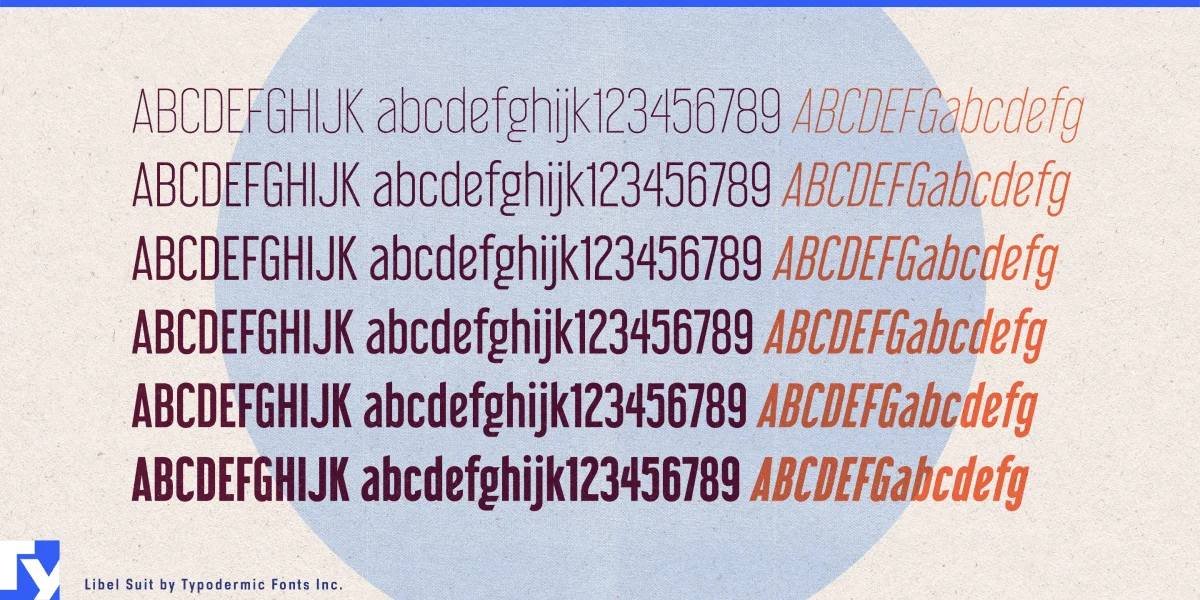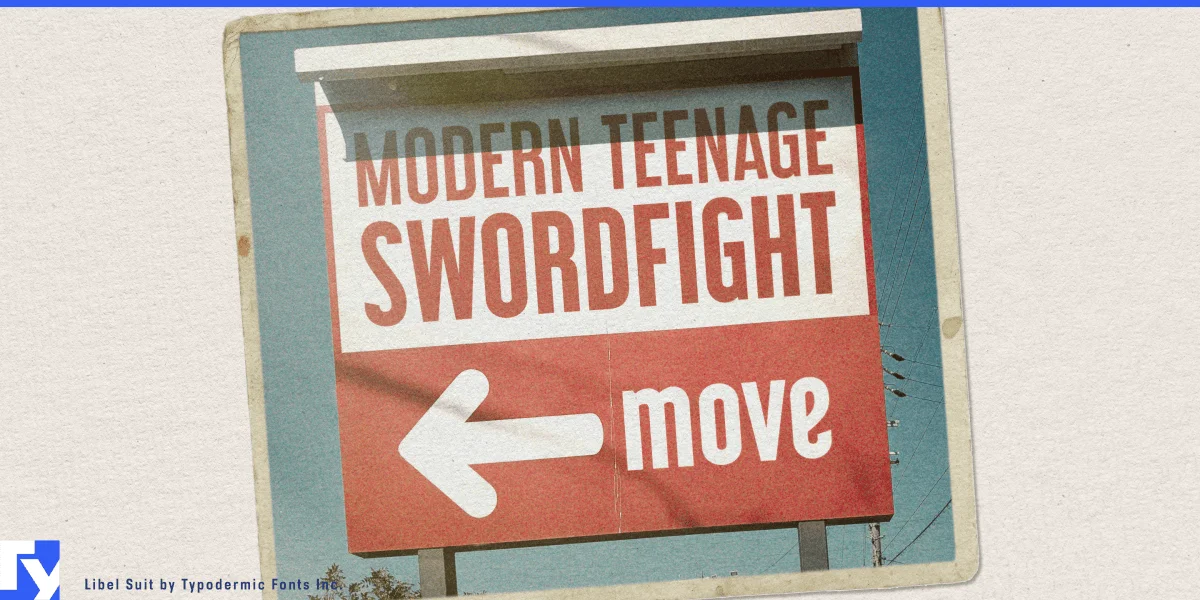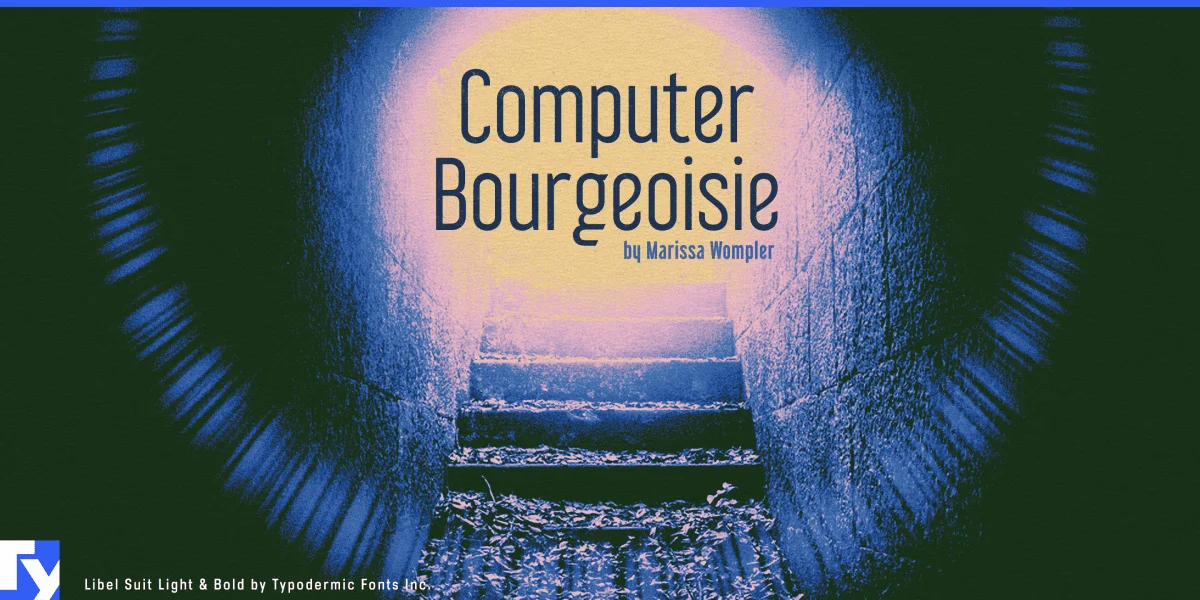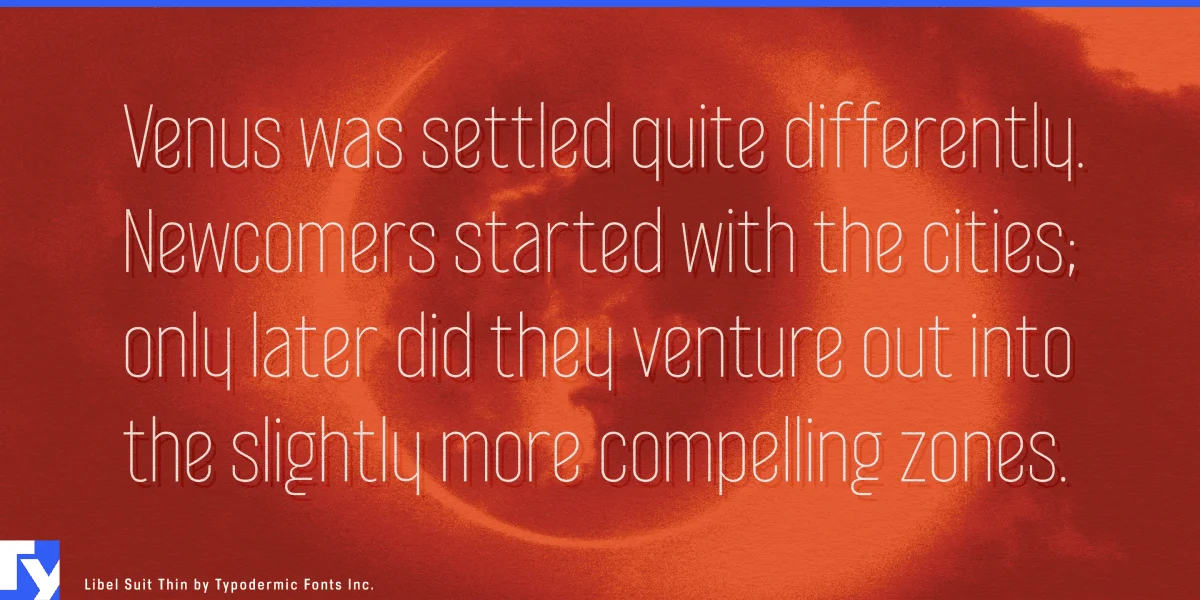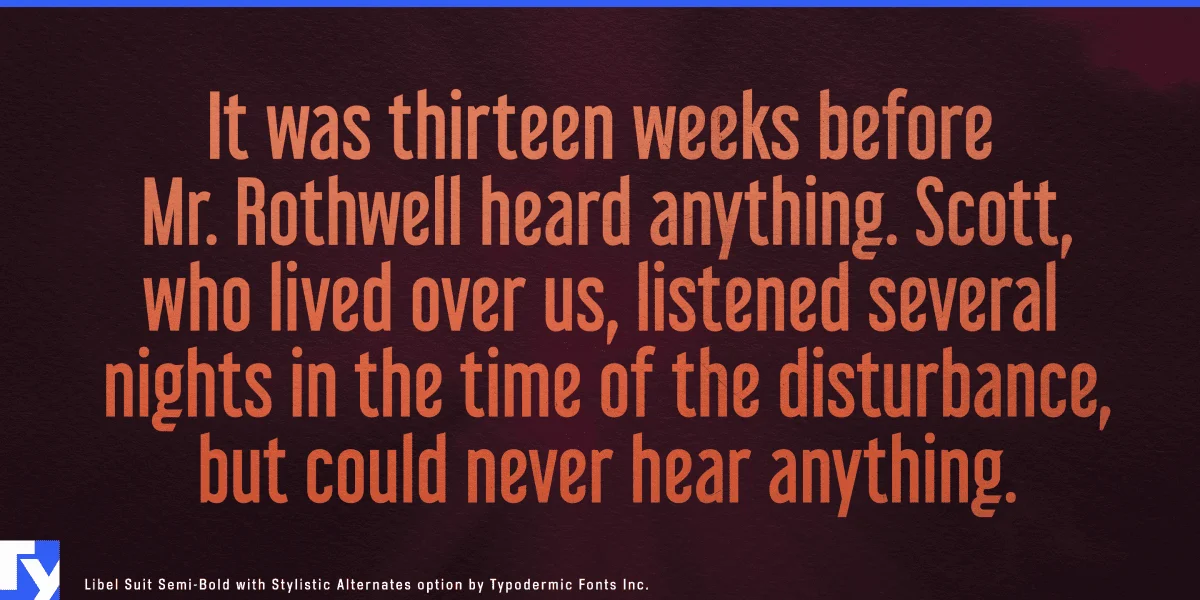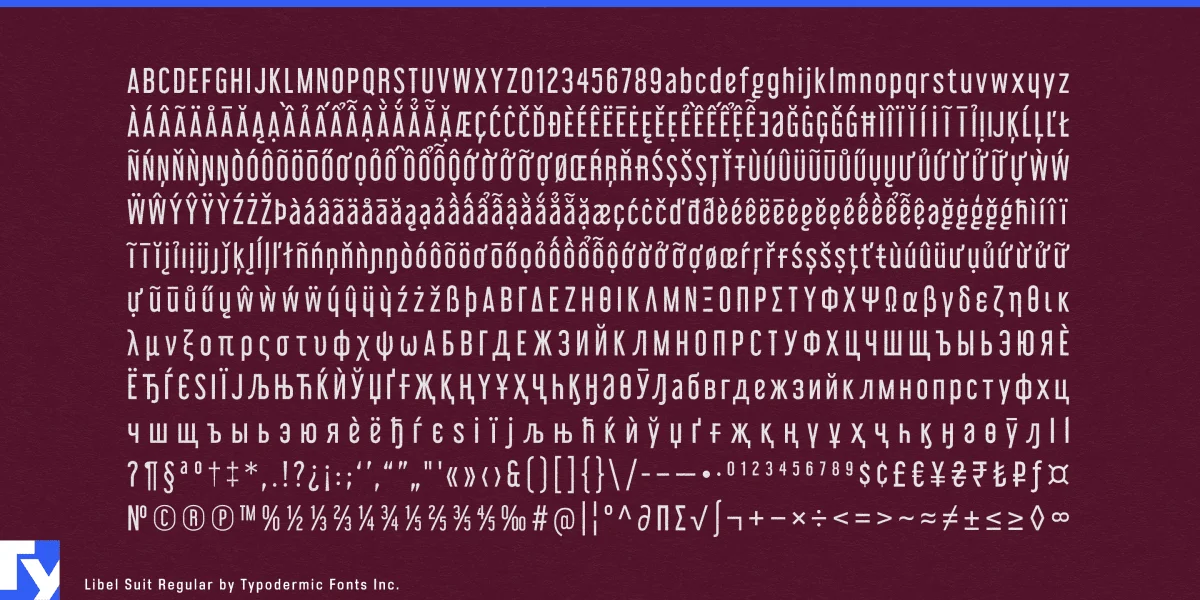
Meet Libel Suit—the sans-serif that’s more cutting-edge than a lawyer’s briefcase. This isn’t just a typeface; it’s a postmodern rebellion squeezed into sleek, efficient letterforms.
Picture a font that’s been through a high-tech tailor, emerging slim, trim, and ready to testify in the court of design. Libel Suit’s unique industrial vibe doesn’t just nod to efficiency—it redefines it. With six weights and matching italics, it’s like having a typographic Swiss Army knife at your disposal. But Libel Suit isn’t content with mere style. It’s armed with OpenType numerical ordinals and fractions, ready to crunch numbers with the precision of a forensic accountant. And for those who like to play by their own rules, the “stylistic alternates” feature lets you swap in a more conventional “g” and “y”—because sometimes even rebels need a disguise. Linguistically, Libel Suit is a polyglot’s dream. It speaks fluent Latin, Cyrillic, Greek, and even Vietnamese, making it ready to take your message global faster than you can say “international incident.”
Ready to inject your designs with a dose of postmodern panache? Let Libel Suit be your typographic advocate. In the cutthroat world of design, Libel Suit doesn’t just stand out—it objects, overrules, and wins the case.